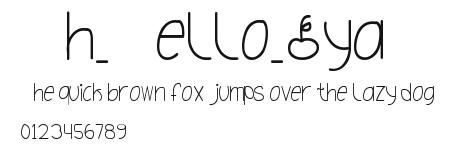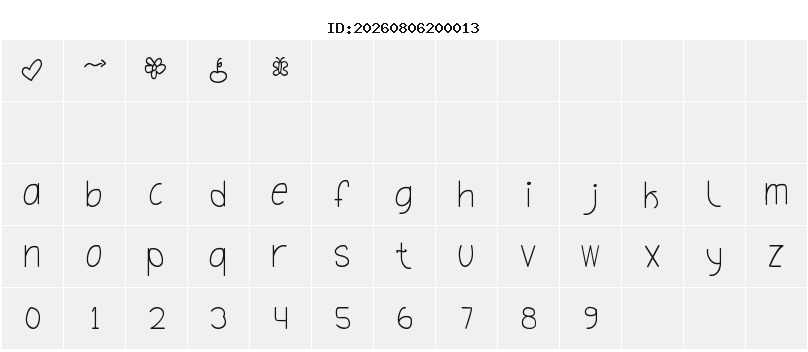
Oh_Hello_Dya Preview
• Font Name: Oh_Hello_Dya
About Oh_Hello_Dya.ttf
Oh_Hello_Dya.ttf is a modern, elegant sans-serif font designed for ultimate readability and visual harmony. Perfect for branding, headlines, web design, and print materials.